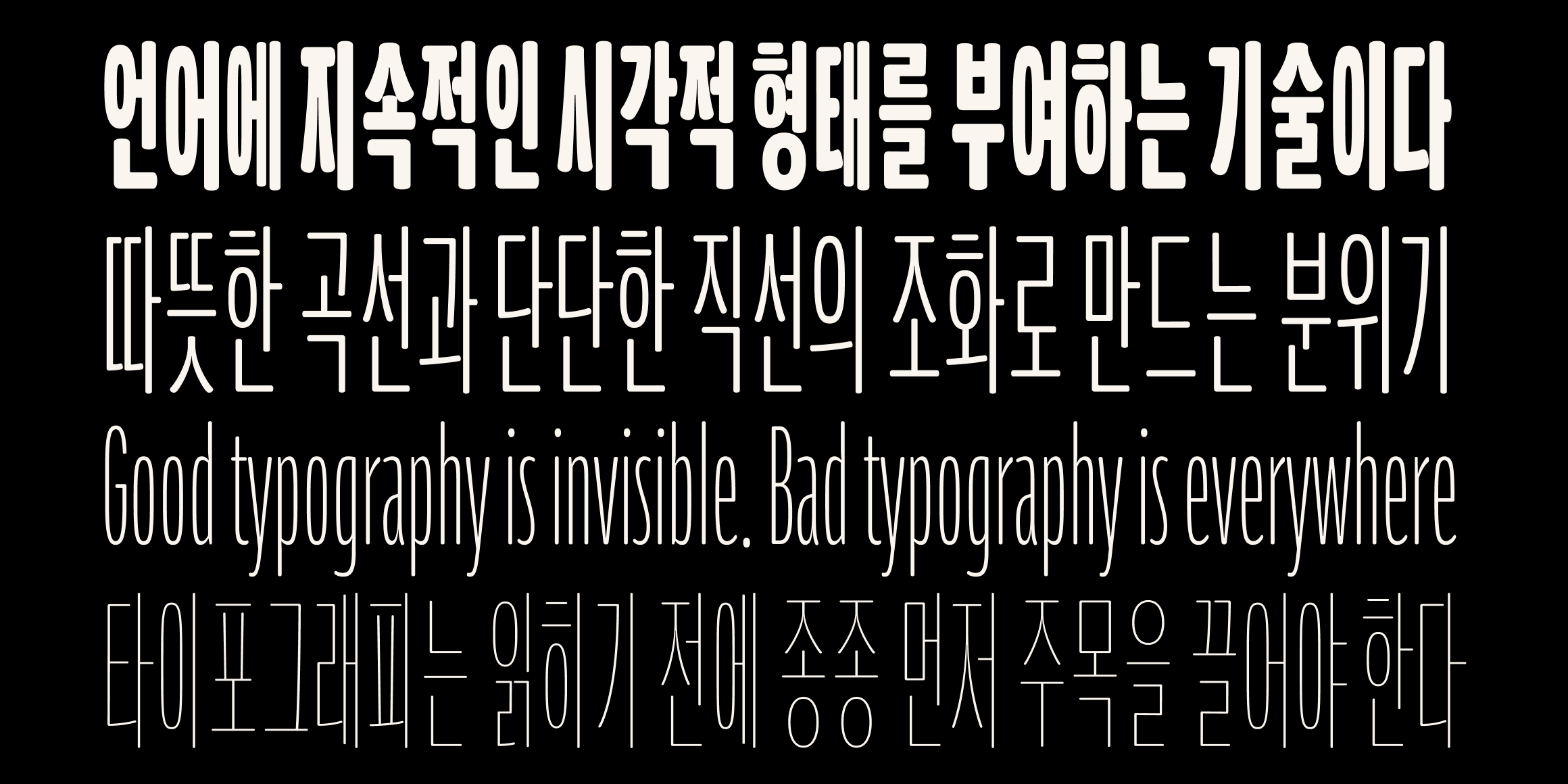
Sandoll Canvas
01 Sketch
02 Croquis
03 Collage
Sandoll Canvas is a family font that attempts to apply various pictorial techniques with fonts.
Regular, Sketch, and Croquis all use different pictorial techniques, making each special.